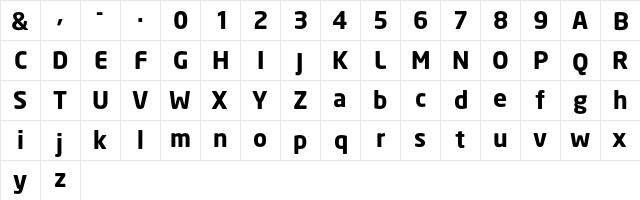
NeoSans Bold
Design Context for NeoSans Typeface
NeoSans is a composed and adaptable typeface that performs quietly and consistently across a wide range of design contexts. Its bold stroke weight gives it real presence on the page.
Pro Tip: Pair NeoSans with a font of contrasting weight or personality to build a more expressive typographic hierarchy.